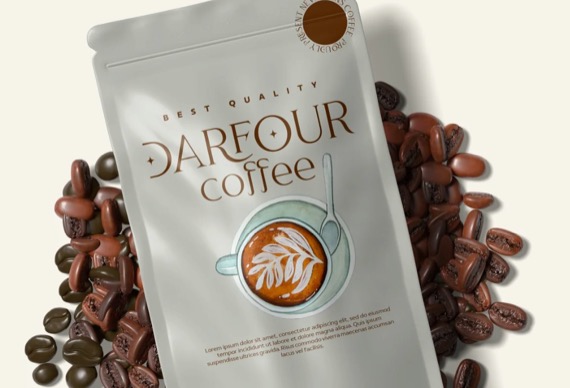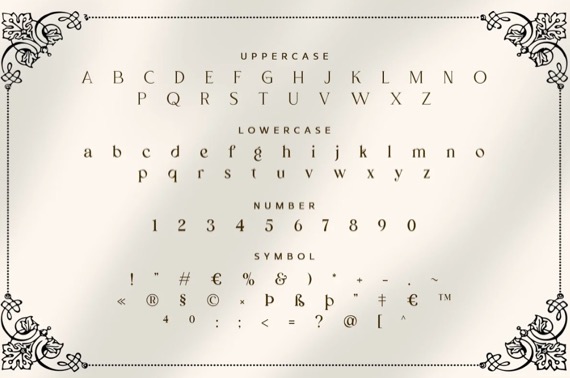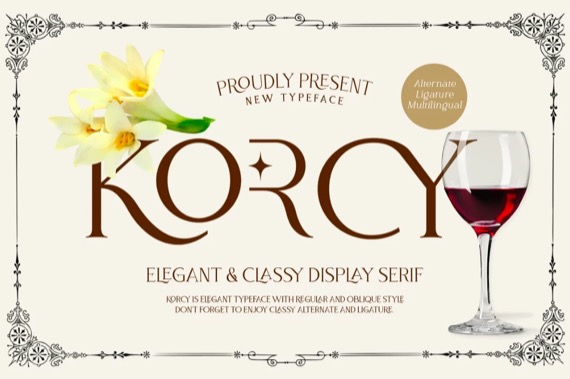
Korcy is a chic and luxury display font that was published by Wildan Type with sharp serifs that contains two styles: Regular & oblique.
It comes with many standard ligatures as well as titling alternatives. The font supports many languages using the Latin-based alphabet.
Korcy is a typeface that is elegant, contemporary, and urbanic.
Korcy Display Serif Font
Designer, Publisher: Wildan Type